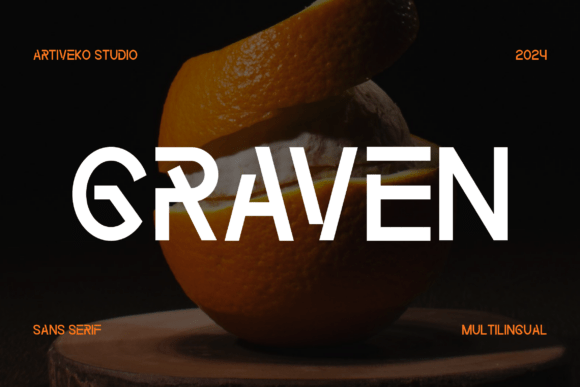
Introducing Graven Font: The Epitome of Clean and Elegant Design
In the realm of typography, a font can make or break the visual appeal of a design project. With the myriad of fonts available, finding the perfect one that exudes elegance, clarity, and versatility can be a daunting task. However, if you’re on the hunt for a typeface that embodies these qualities, look no further than Graven Font. Designed with precision and style in mind, Graven is a clean and elegant sans serif font that is poised to elevate your design projects to new heights.
Key Features of Graven Font
- Clean and Elegant Design: Graven boasts a smooth, refined aesthetic that is perfect for projects requiring a touch of sophistication.
- Versatility: This font is designed to be versatile, making it suitable for a wide range of applications, from branding and editorial layouts to packaging and digital content.
- Clarity: With its clear and legible design, Graven ensures that your message is conveyed with precision, whether it’s used in large headlines or smaller body text.
- Modern Proportions: The font features balanced spacing and modern proportions, contributing to its minimalist feel and making it a perfect fit for contemporary design projects.
Design Applications of Graven Font
Graven’s adaptability makes it an excellent choice for various design applications. Here are some areas where Graven truly shines:
- Branding: Establish a strong brand identity with Graven’s elegant and professional appearance. Its clean lines and balanced proportions make it ideal for logos, business cards, and brand guidelines.
- Editorial Layouts: Whether you’re working on a magazine, newspaper, or blog, Graven’s readability and flow make it perfect for editorial content. Its versatility allows it to be used in both headings and body text.
- Packaging: For product packaging, Graven offers a modern and sophisticated look that can enhance the visual appeal of your products. Its clarity ensures that product information is easily readable.
- Digital Content: In the digital realm, Graven performs exceptionally well across various platforms. Its clean design ensures that your digital content, whether it’s a website, app, or social media graphics, looks polished and professional.
The Typographic Benefits of Graven
Graven’s design is not just about aesthetics; it also offers several typographic benefits that make it a superior choice for designers:
- Legibility: The font’s clear and open design ensures high legibility, even at smaller sizes, making it perfect for body text.
- Hierarchy: Graven’s range of weights (if available) allows for the creation of a clear visual hierarchy, essential for effective communication in design.
- Consistency: Using Graven across different design elements ensures consistency, which is key to building a strong brand image.
Tips for Implementing Graven in Your Designs
To get the most out of Graven Font, consider the following implementation tips:
- Pair it Wisely: While Graven is versatile, pairing it with complementary fonts can enhance its appeal. Consider pairing it with serif fonts for a classic look or with other sans serifs for a modern, layered effect.
- Experiment with Weights: If Graven comes in multiple weights, experiment with them to create visual hierarchy and add depth to your designs.
- Pay Attention to Spacing: While Graven’s balanced spacing is one of its strengths, adjusting the letter and line spacing can further enhance its appearance in your specific design context.
- Consider the Context: Always consider the context in which Graven will be used. Ensure it aligns with the tone and message of your project.
Graven Font stands out in the world of typography as a beacon of clean, elegant, and versatile design. Its ability to convey messages with precision and style makes it an invaluable tool for designers across various disciplines. Whether you’re working on a branding project, laying out an editorial piece, designing packaging, or creating digital content, Graven offers the clarity, sophistication, and adaptability needed to elevate your work. By incorporating Graven into your design projects, you’re not just choosing a font; you’re embracing a design philosophy that prioritizes simplicity, elegance, and effectiveness.